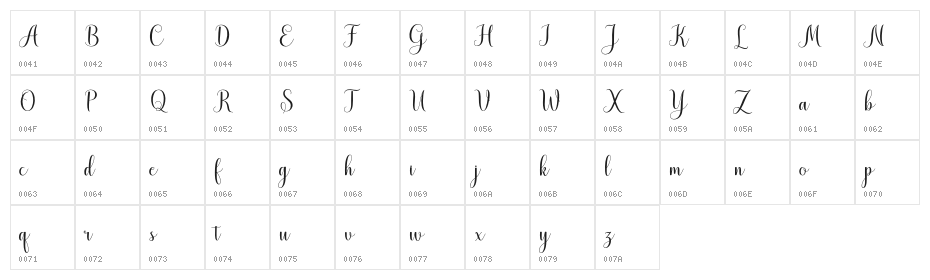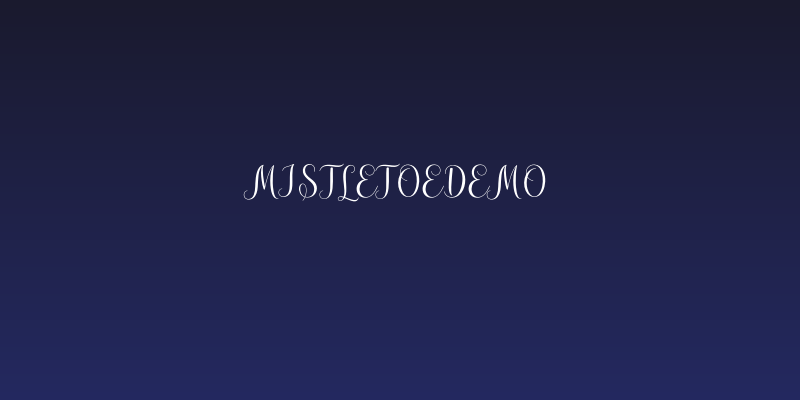
MistletoeDemo Font
✎ Script
| Kategorien | Script |
| Gesamtstil | Elegant, Classic |
| Anwendungsfall | Logos, Invitations, Decorative text |
| Vorgeschlagene Projekte | Ideal for wedding invitations, greeting cards, branding, and elegant packaging designs. |